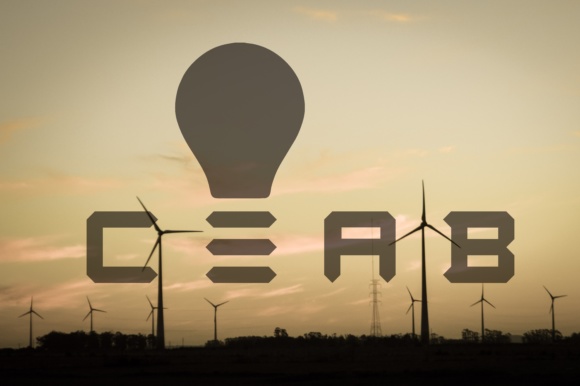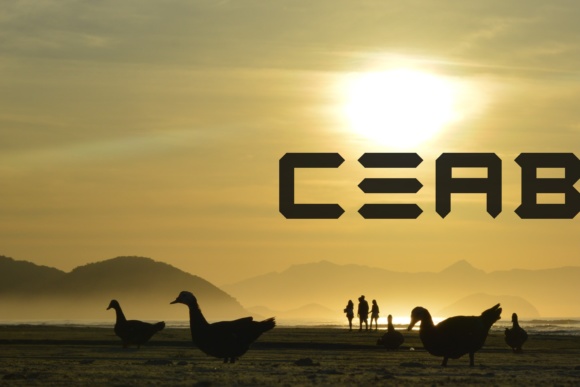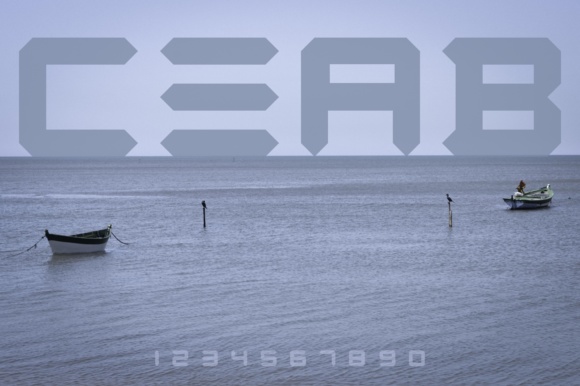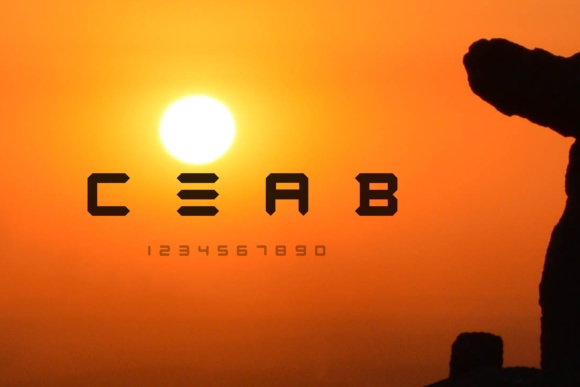
Introduction to CEAB Font
As designers, we’ve all been there – staring at a blank canvas, trying to bring a creative project to life. The right font can make all the difference, elevating your design from bland to grand. And that’s exactly where the CEAB Font comes in – a strong and symmetrical font that screams futuristic chic.
Whether you’re working on a high-tech startup’s logo or a sci-fi themed website, the CEAB Font is the perfect design resource to take your project to the next level. With its high-quality all-caps design, it’s sure to grab attention and leave a lasting impression. And the best part? This versatile font looks just as good with a transparent background as it does with a bold, contrasting color – giving you the flexibility to experiment and try out new ideas.
Key Features of CEAB Font
- High-quality design resource for creative projects, ideal for graphic designers and digital artists.
- Unique and stylish design aesthetic, perfect for adding a touch of elegance and sophistication to creative projects.
Honest Review: CEAB Font
As a designer, I’m always on the lookout for high-quality design resources that can elevate my creative projects. Recently, I stumbled upon the CEAB Font, and I’m excited to share my honest review with you.
- ✨ Unique and creative design: The CEAB Font has a distinctive style that sets it apart from other fonts. Its irregular shapes and lines add a touch of sophistication to any design project.
- ⚠️ Limited character set: The CEAB Font has a limited character set, which may not be suitable for longer texts or professional documents.
- ⚠️ May not be suitable for all designs: While the CEAB Font is perfect for creative projects, it may not be the best choice for more formal or traditional designs.
Overall, I’m impressed with the CEAB Font’s unique design and versatility. While it has some limitations, it’s an excellent resource for designers looking for a high-quality, creative font for their projects. With its transparent background and free download, it’s definitely worth checking out.
Tips for Getting the Most Out of CEAB Font
For a high-quality look, pair CEAB Font with a transparent background. This will help your design stand out.
Experiment with different font sizes and styles to find the perfect balance for your creative project.
CEAB Font is ideal for:
Logo design
Infographics
Business cards
Brochures